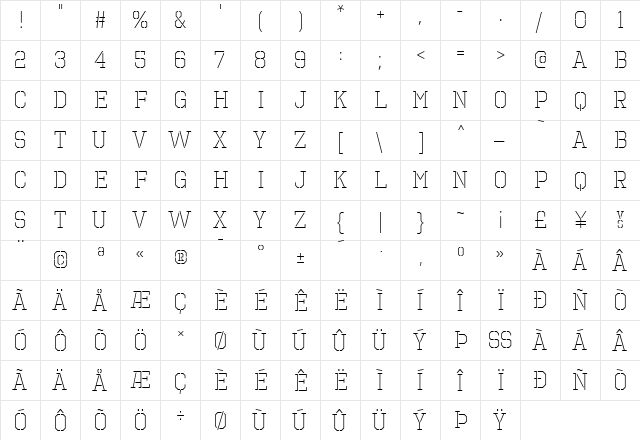
Octin Prison Light
Design Context for Octin Prison Typeface
Octin Prison takes a measured approach to typography — its balanced proportions and neutral character make it a reliable workhorse for both digital and print work. Its slender proportions lend an understated elegance to any composition.
Pro Tip: Pair Octin Prison with a font of contrasting weight or personality to build a more expressive typographic hierarchy.